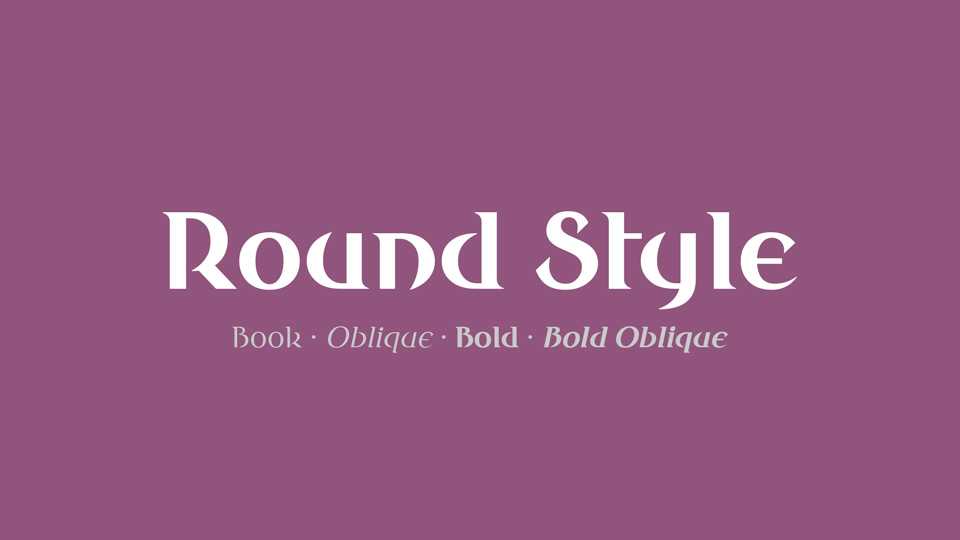
Download Round Style font, a decorative serif typeface with elegant and modern look. Round Style font is perfect to compose titles, short texts, labels and letterings that need to look attractive to the eye.
Designer: Wojciech Kalinowski